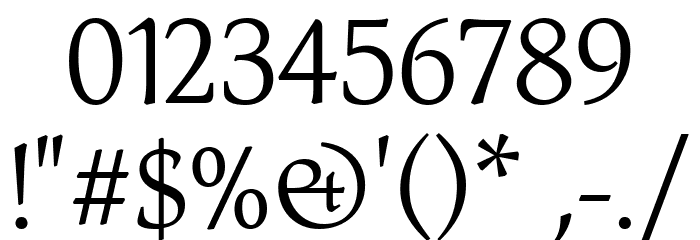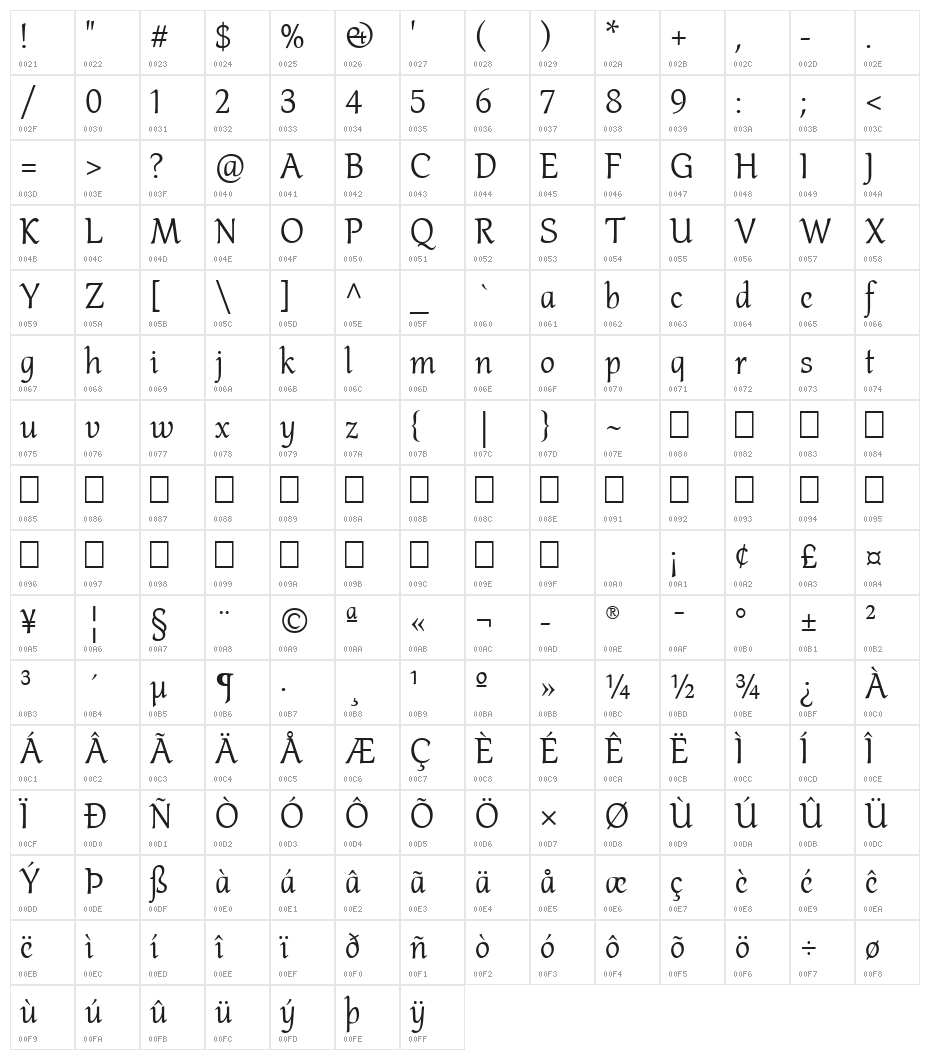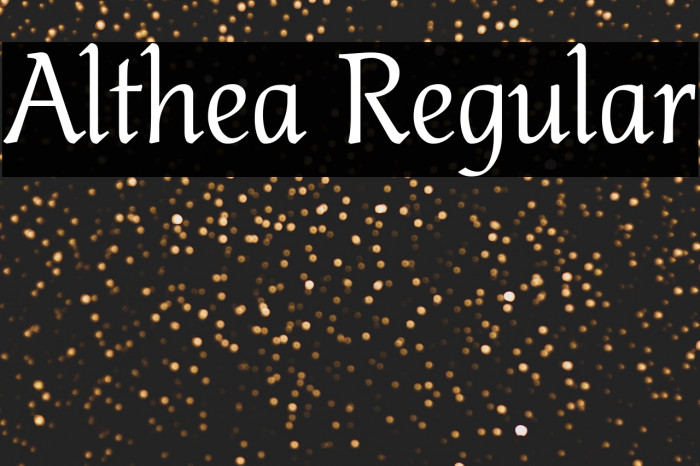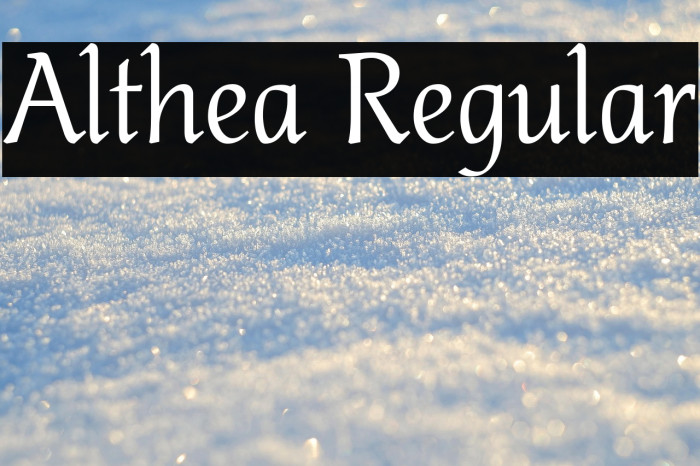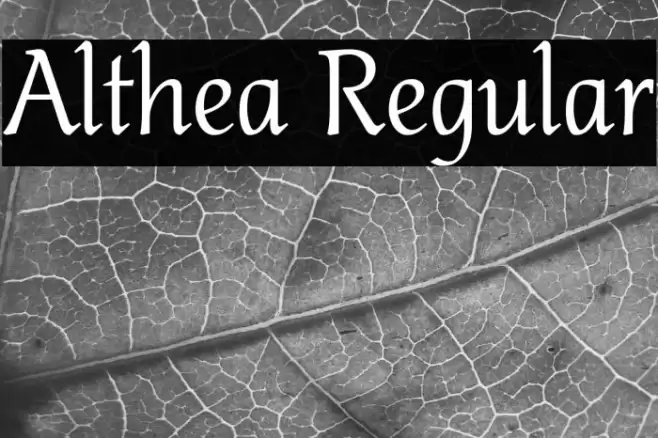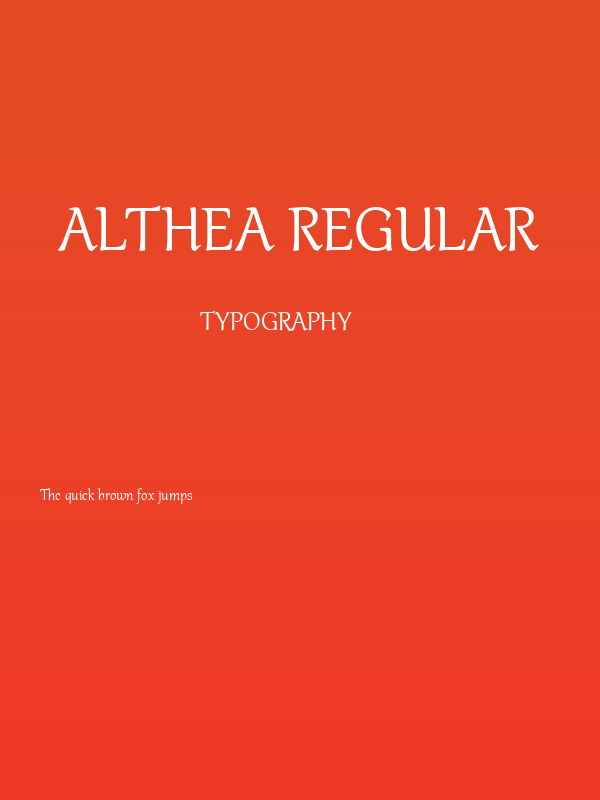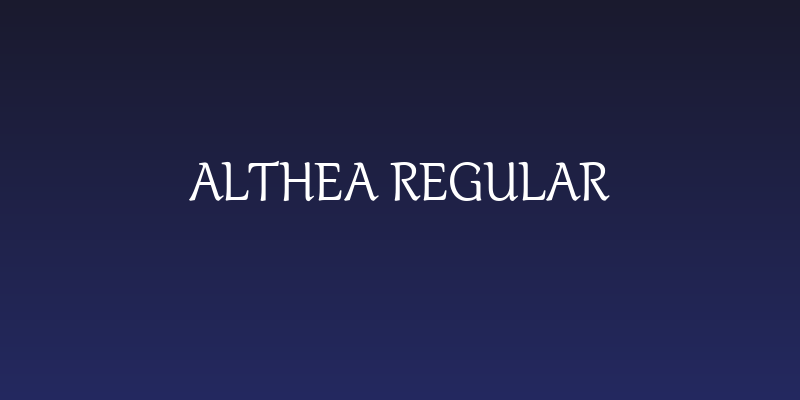
Althea Regular Font
Althea Regular Description
This font features a classic serif style with elegant curves and a slightly calligraphic influence. The uppercase letters are tall and stately, with a refined presence that suggests a sense of tradition and formality. The lowercase letters maintain a consistent flow, with smooth transitions and a harmonious balance. The numerals are clear and legible, designed to complement the overall aesthetic. Special characters are thoughtfully crafted, adding to the font's versatility. The font's design is suitable for both digital and print media, offering a timeless appeal.
| Proposed Projects | Ideal for book covers, formal invitations, branding, and editorial design. |